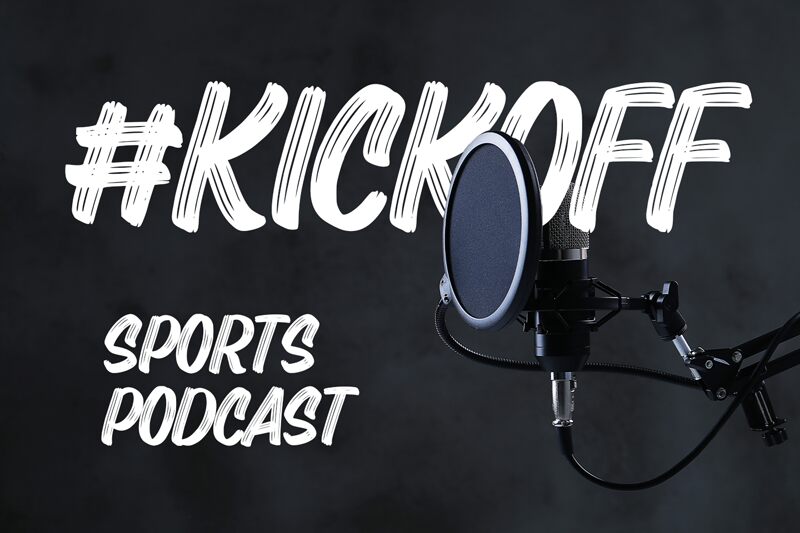
The Hashtag font by Abo Daniel Studio is a free brush font characterized by its dynamic and energetic visual appeal. This modern, casual typeface is assertive, making it ideal to be used when bold personality is needed. If you’re aiming to make a memorable impression, The Hashtag lends you plenty of character and expression in 1 style.
This sporty and informal typeface is perfect for logo design, branding and identity, packaging and labeling, editorial design, and apparel design. The Hashtag also works for digital designs, most notably social media, webpage design, advertising, and marketing material.